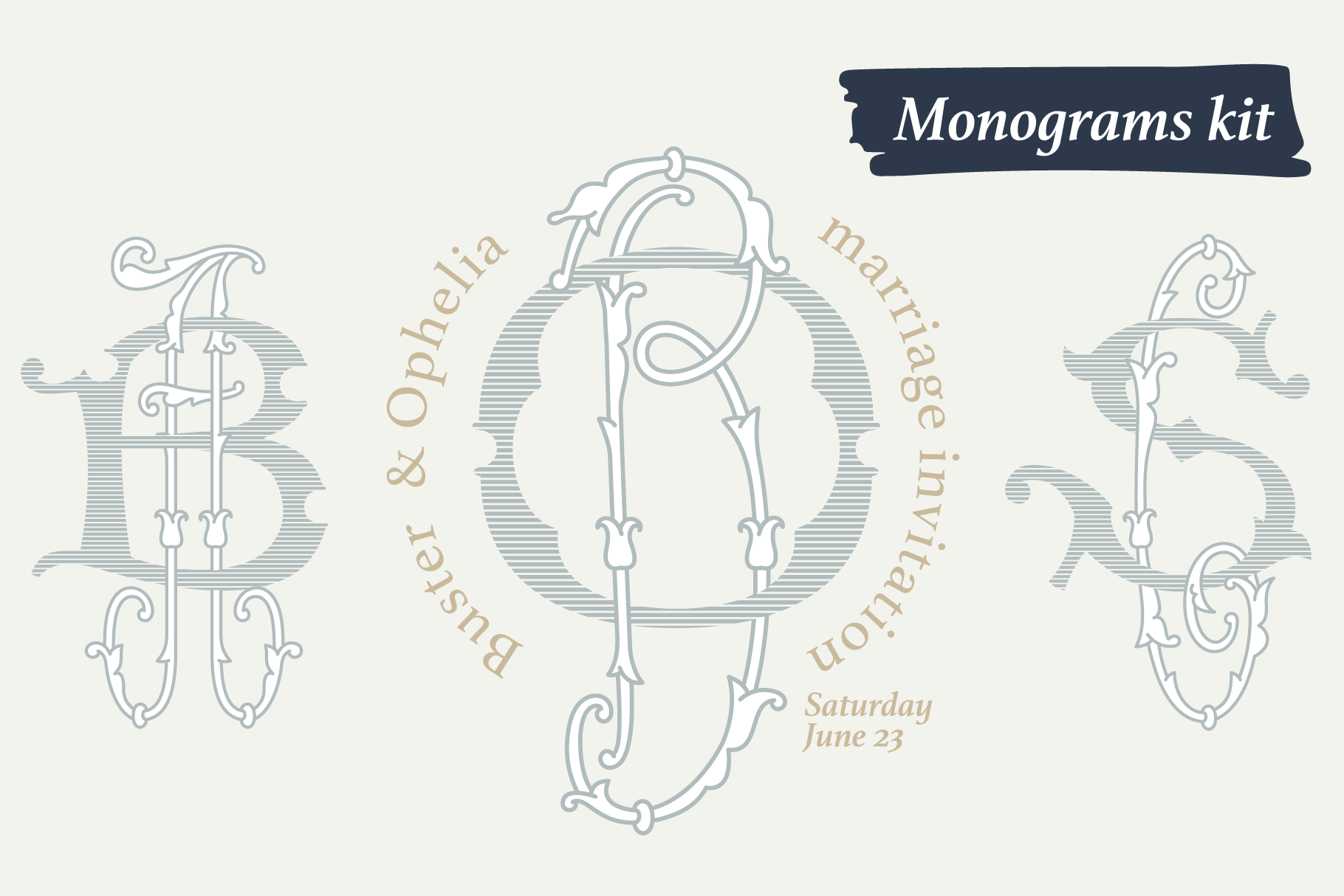
New Wedding Monograms fonts set
At this time I found the Album of monograms – a guide for doing handicrafts in families and educational institutions. It was published in St. Petersburg in 18ХХ. Finally, I found an authentic English style monograms set. These monograms are characterized thin swirled lines and lush foliage patterns. I manually redesigned and vectorized two sets of alphabets (narrow and wide) and happy to introduce you Marriage Monograms font.
You’ll get the set includes Wide and Narrow capitals, so you can make your own monogram, by combining letters you want. +SVG file as well.